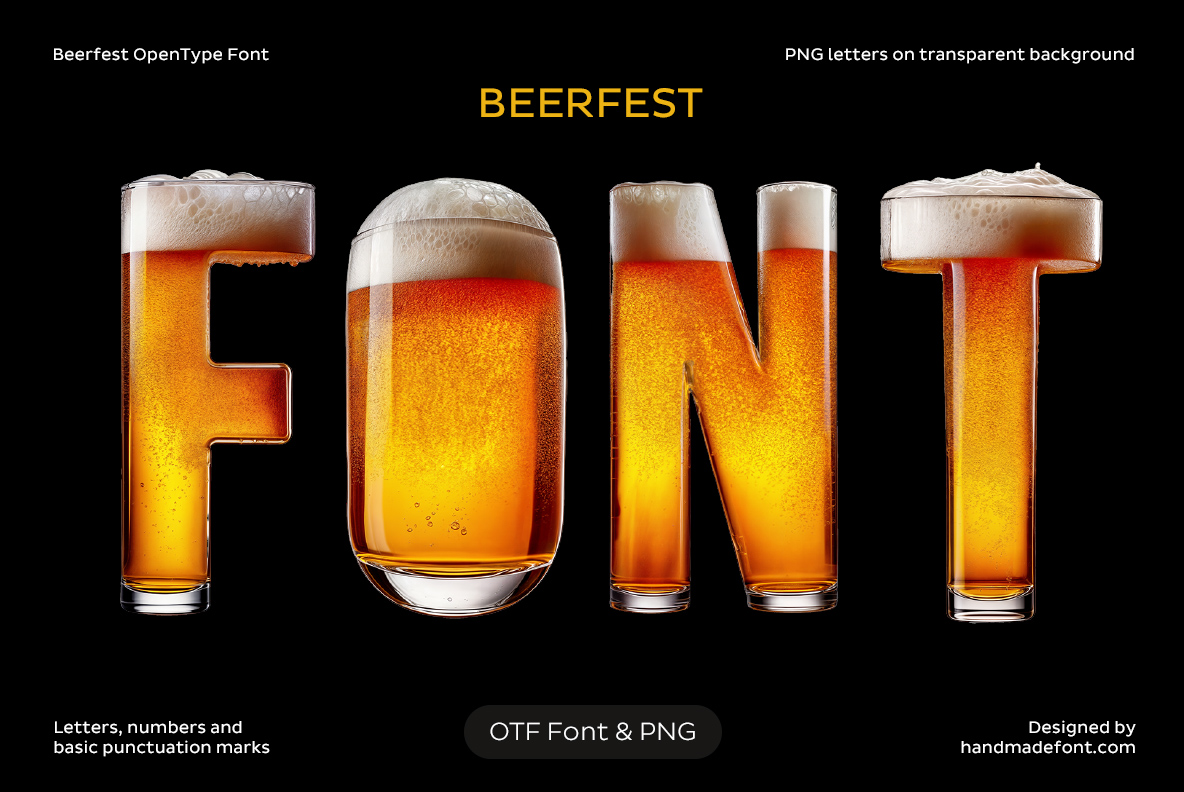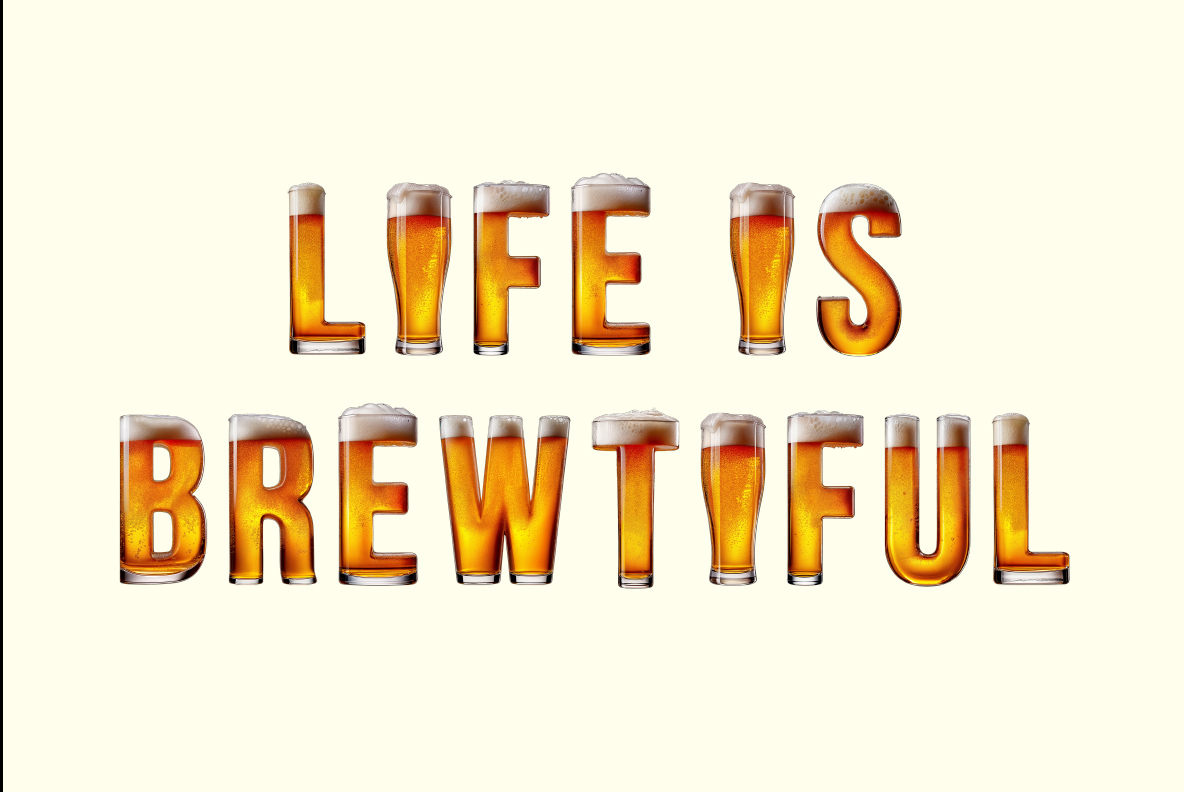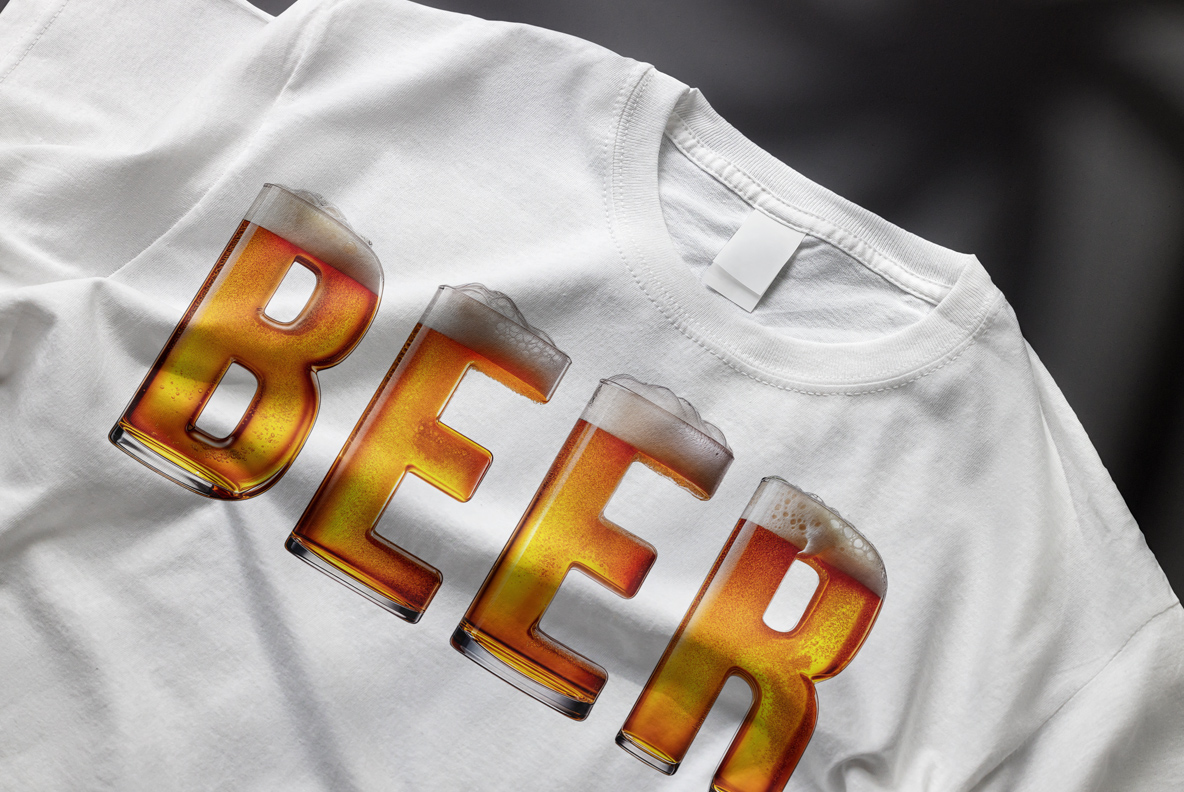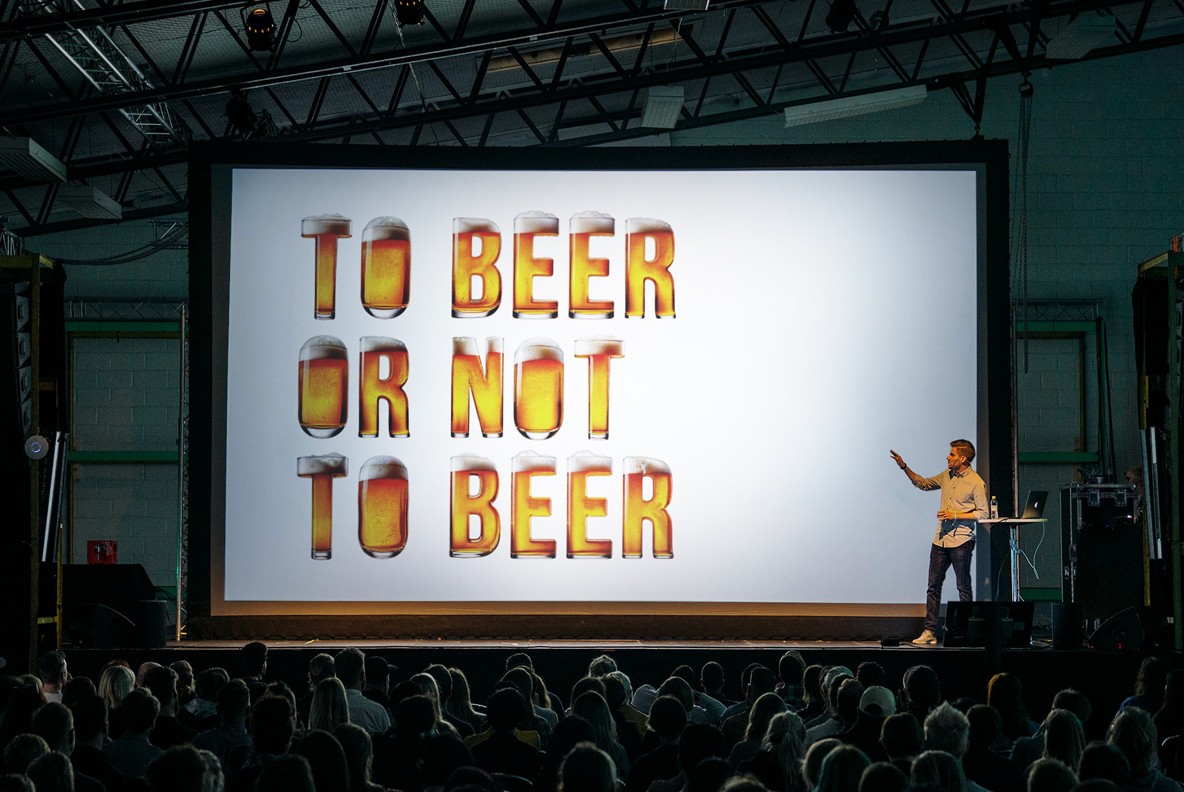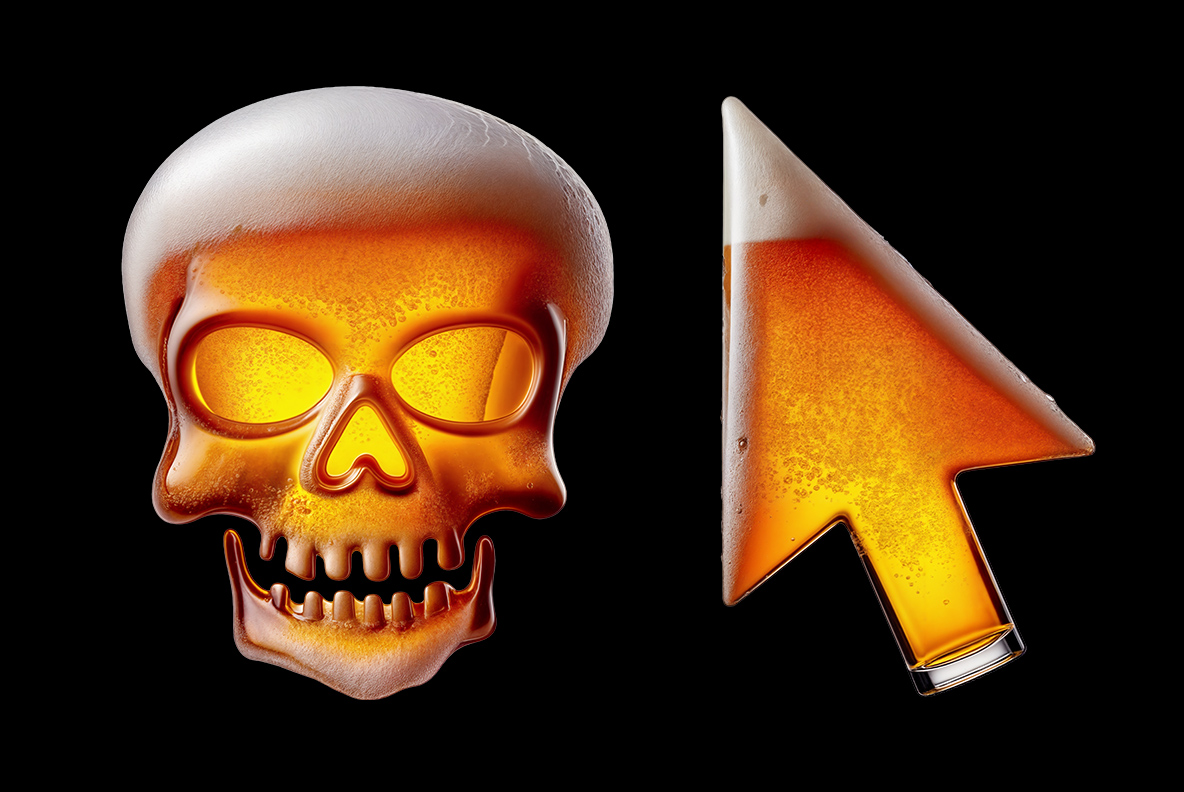
Beerfest Font. Every character poured fresh, with extra hops
Capitals built as tall glasses of lager: a white foam head bulging over the top of each glyph, fine carbonation clinging inside and condensation beading on the outside. An icon set and three loose glasses come with it. It suits breweries, taprooms, pub menus, beer festivals and event posters.
Each letter is a glass, filled to the brim
Every capital is, in effect, a tall glass with lager sitting inside it. You can see the glass wall at the edges, catching a thin highlight down each side. The liquid then runs from pale straw at the top to deep amber near the base. Because the fill stops just short of the rim, each letter reads as a real pour. A proper glass shape wraps the ampersand as well.
Foam on top, bubbles clinging inside
A white foam head also sits across the top of every glyph. It bulges slightly over the edge, the way a fresh pour does, and the bubbles in it stay uneven. Fine carbonation clings to the inside of the glass, meanwhile, rising in loose trails. Condensation beads collect on the outer surface too. So the letters look cold rather than merely orange.
Animated preview showing letters of the Beerfest Font being typed.
Beerfest Font for taprooms and festival work
Taprooms and beer festivals are the obvious home for the Beerfest Font, naturally. We show it below on a red roadside billboard, a white tee, a framed print, a record sleeve and a conference screen. Besides that, breweries, bars, pub menus and event posters all suit it. Sports bars and Oktoberfest work take it as well, since the shapes read instantly. Set it on dark backgrounds, then the glow does the rest.
Pouring the Beerfest Font into your layout
Black cover artwork spelling FONT in beer-filled glasses of the Beerfest Font.
Letters, numerals and symbols of the Beerfest Font glowing on black.
Red billboard on a metal wall with a five-letter word in the Beerfest Font.
At sign and ampersand filled with lager and foam from the Beerfest Font.
Cream layout with a two-line beer pun set in the Beerfest Font.
Three separate lager glasses with foam heads, included with the Beerfest Font.
White t-shirt mockup with a four-letter word in the Beerfest Font.
Six beer-filled icons including skulls, a star and a hand from the Beerfest Font.
Framed interior print of a beer-filled dollar sign from the Beerfest Font.
Six more beer-filled icons including a heart and arrows from the Beerfest Font.
Large conference screen showing a three-line beer pun in the Beerfest Font.
Beer-filled skull and cursor icons included with the Beerfest Font.
Black vinyl sleeve mockup with a two-word title in the Beerfest Font.
Letters A to D and numerals 1 to 4 of the Beerfest Font on a transparent background.